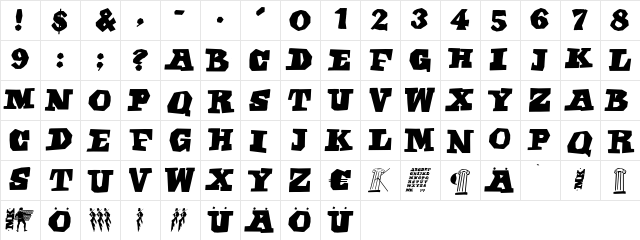
EgyptianFreehand Regular Font Preview
EgyptianFreehand Regular
Design Context for EgyptianFreehand Typeface
EgyptianFreehand flows with the natural rhythm of handwritten lettering, making it ideal for designs that call for warmth and personal expression.